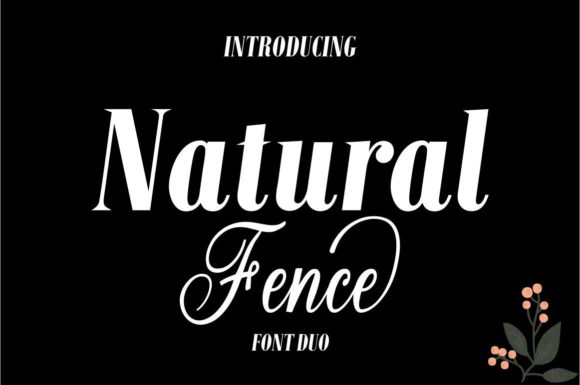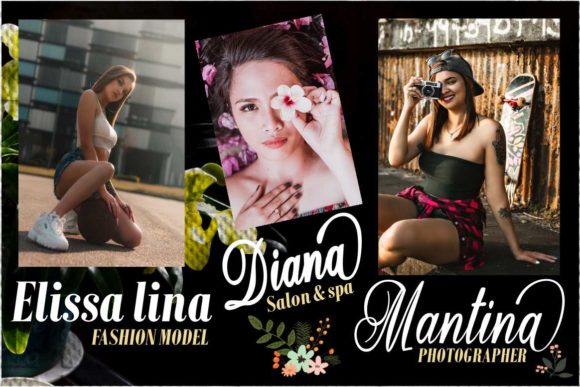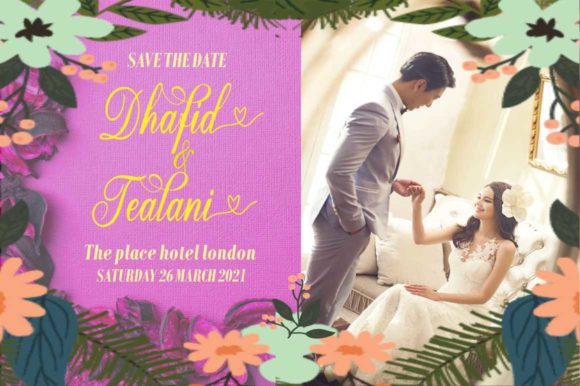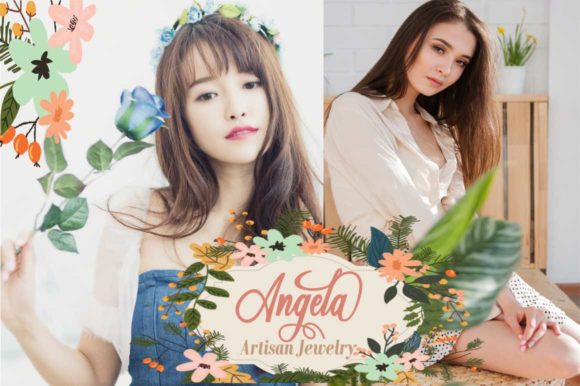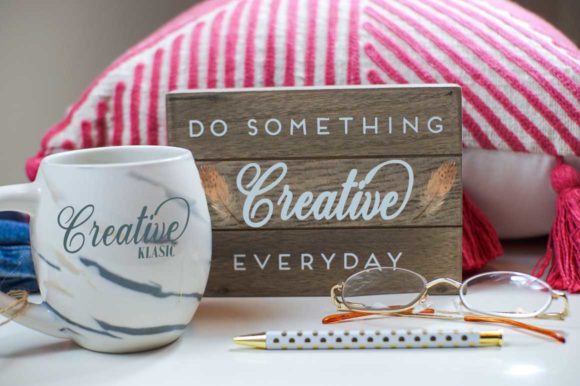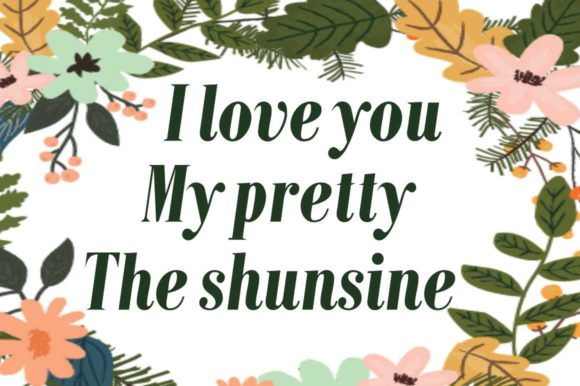
Natural Fence Font
About Natural Fence Font
Natural Fence is a new modern calligraphy font. This handwritten font is PUA encoded which means you can access all of the beautiful glyphs and swashes with ease!